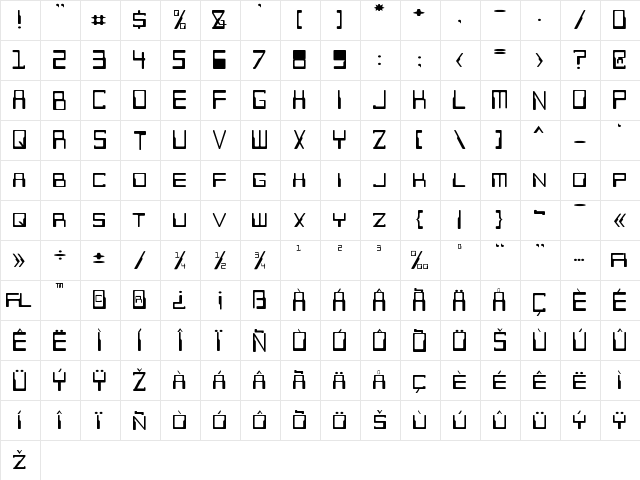
FutureWorld Normal
Design Context for FutureWorld Typeface
FutureWorld channels digital-age aesthetics through its sharp, structured letterforms — ideal for brands that want to signal innovation.
Pro Tip: Use FutureWorld in combination with a neutral sans for body text. Let it define the brand voice in headlines while keeping reading comfortable elsewhere.